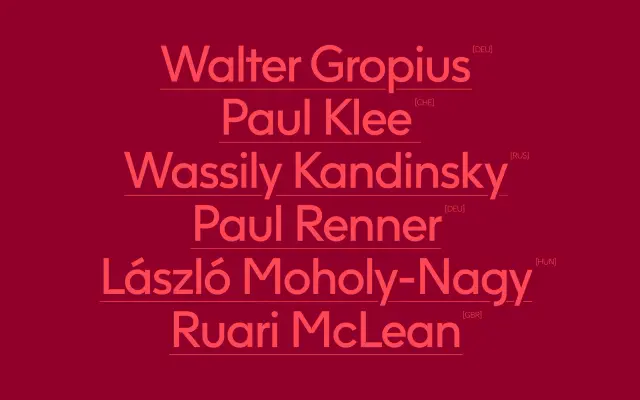
F37 Jan
A hybrid display serif with eccentric ink traps and geometric flicks, named for Jan Tschichold.
A display serif by Rick Banks, drawn as a hybrid of two classic faces with eccentric ink traps and specially designed geometric licks. Eight styles span Thin, Light, Regular and Bold with matching italics. The family is named for Jan Tschichold, the modernist who shaped twentieth-century typography through his work at Penguin Books and on Sabon. Credits include Syracuse International Film Festival, Something Good, Traffic Digital and GSK, and the family suits editorial, identity and packaging that wants serif elegance with a slight industrial edge.
F37 describe Jan as a hybrid of two classic faces, featuring eccentric ink traps and specially designed geometric licks. The name and reference text point to Jan Tschichold and his work on Sabon and Penguin Books.